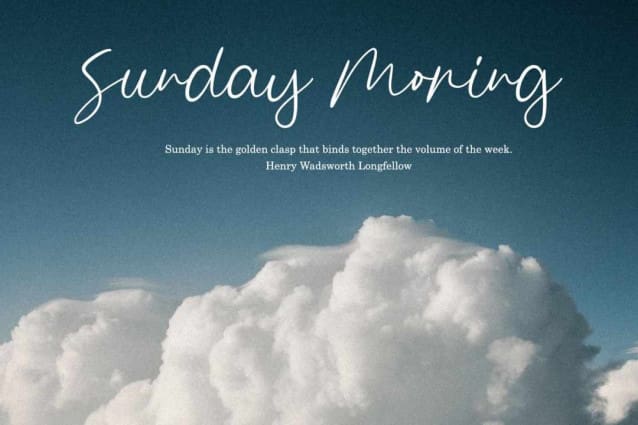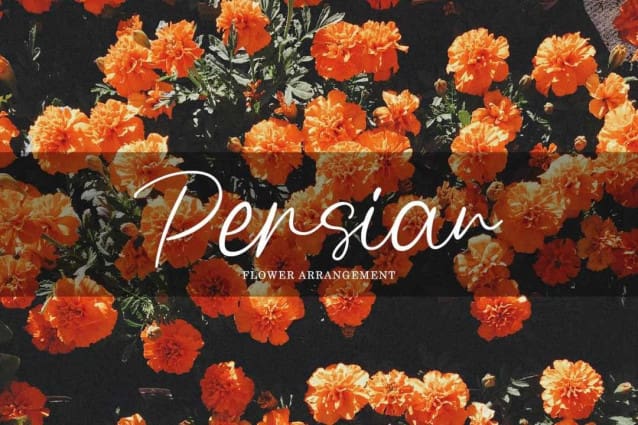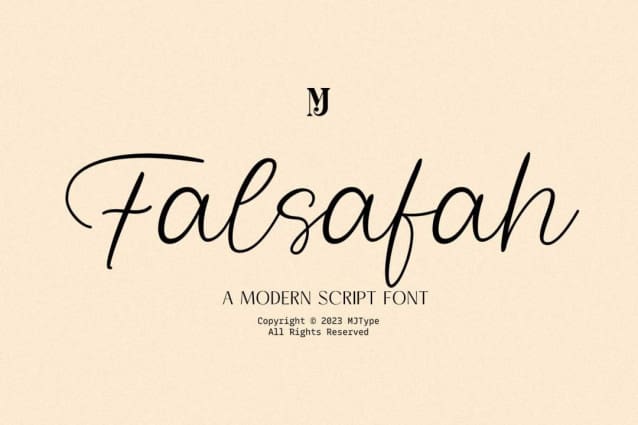
Falsafah Script Font
Falsafah Script Font, Ideal for logos, handwritten quotes, product packaging, header, poster, merchandise, social media & greeting cards.